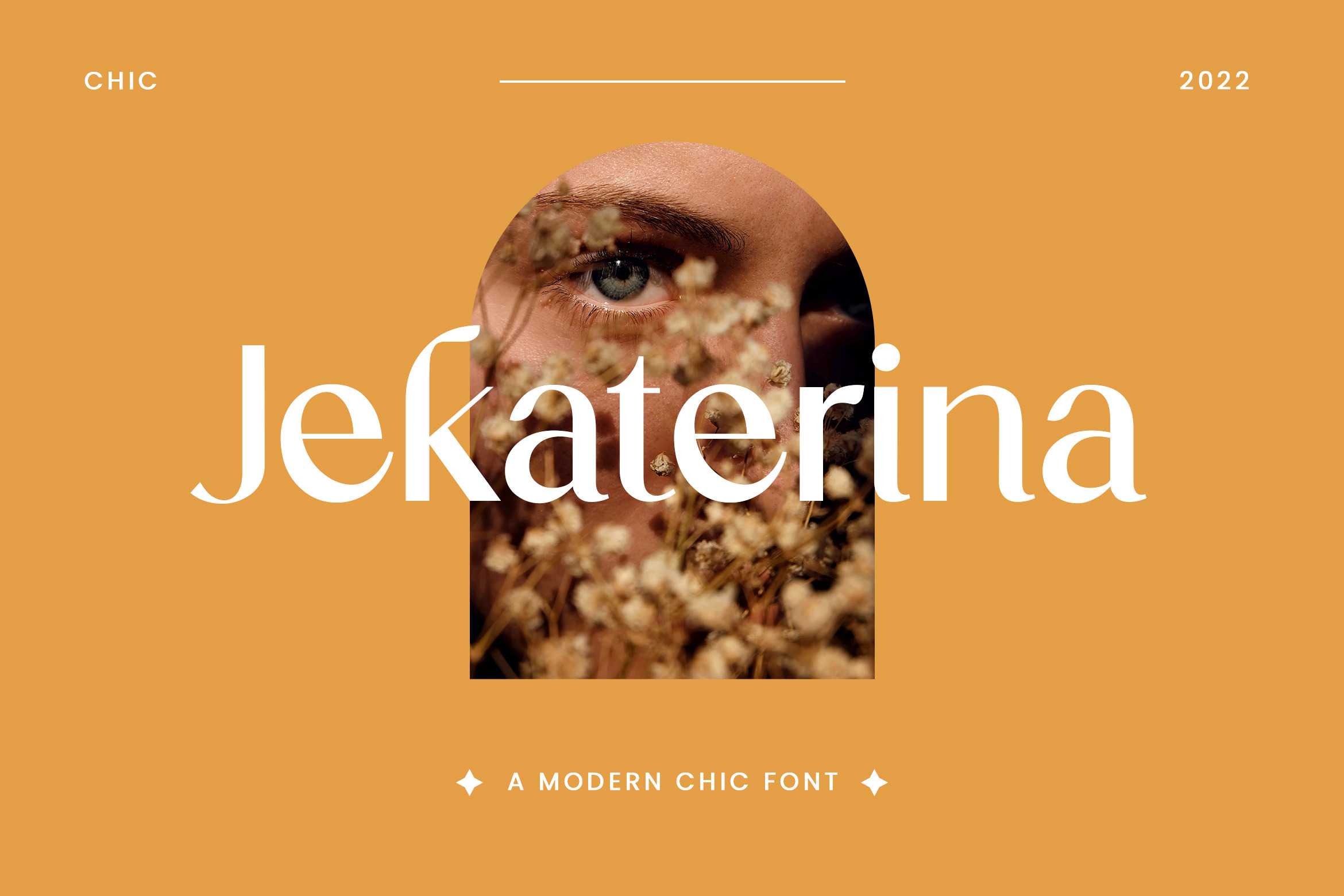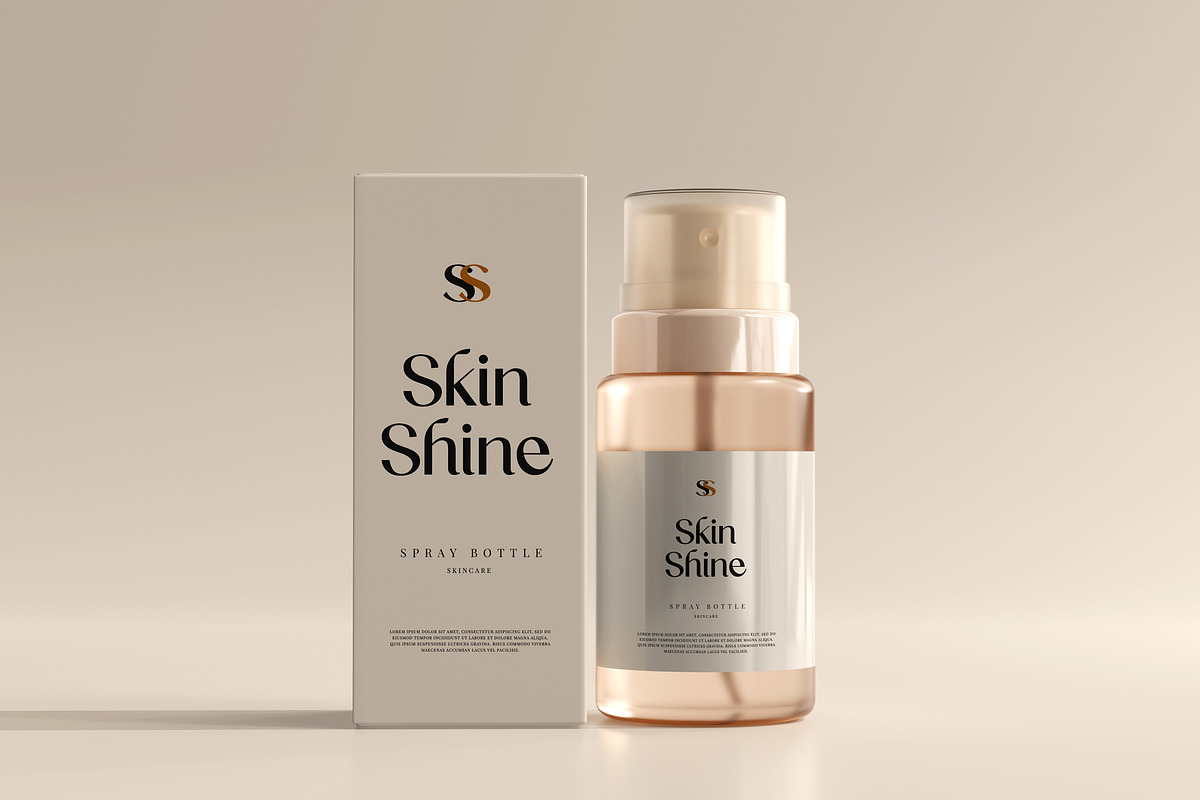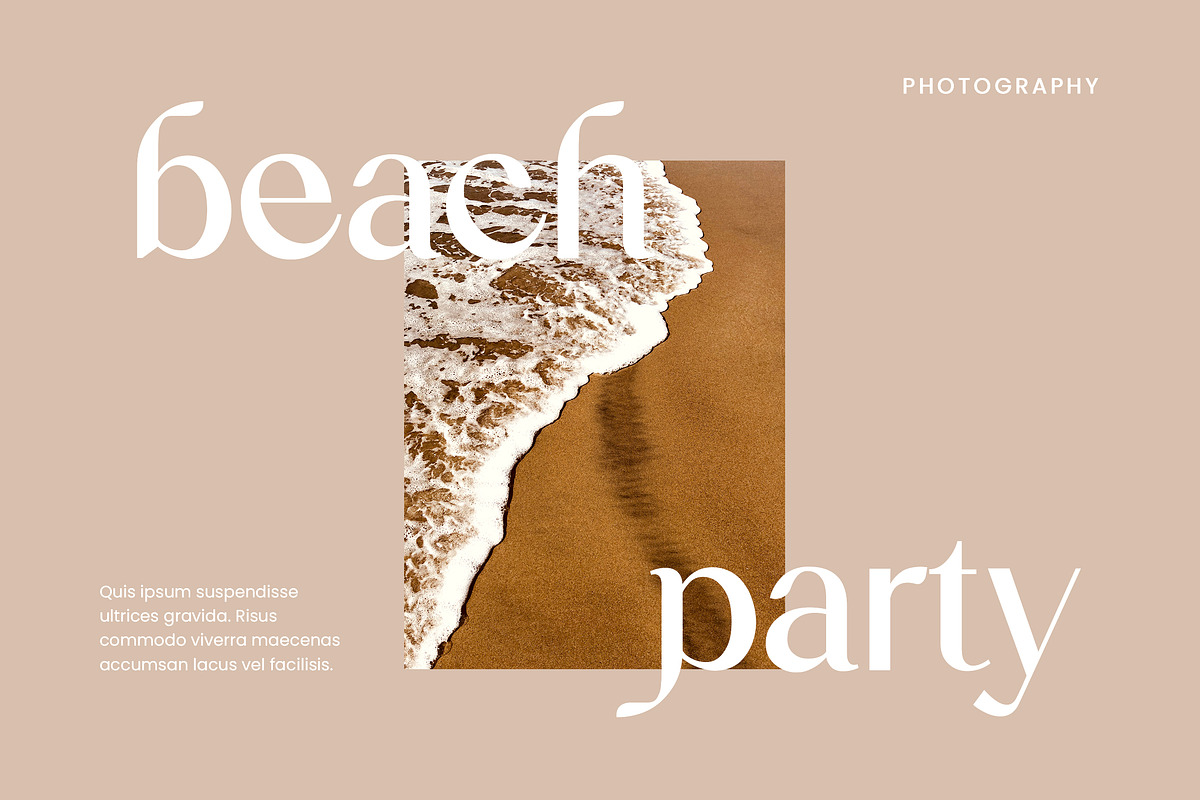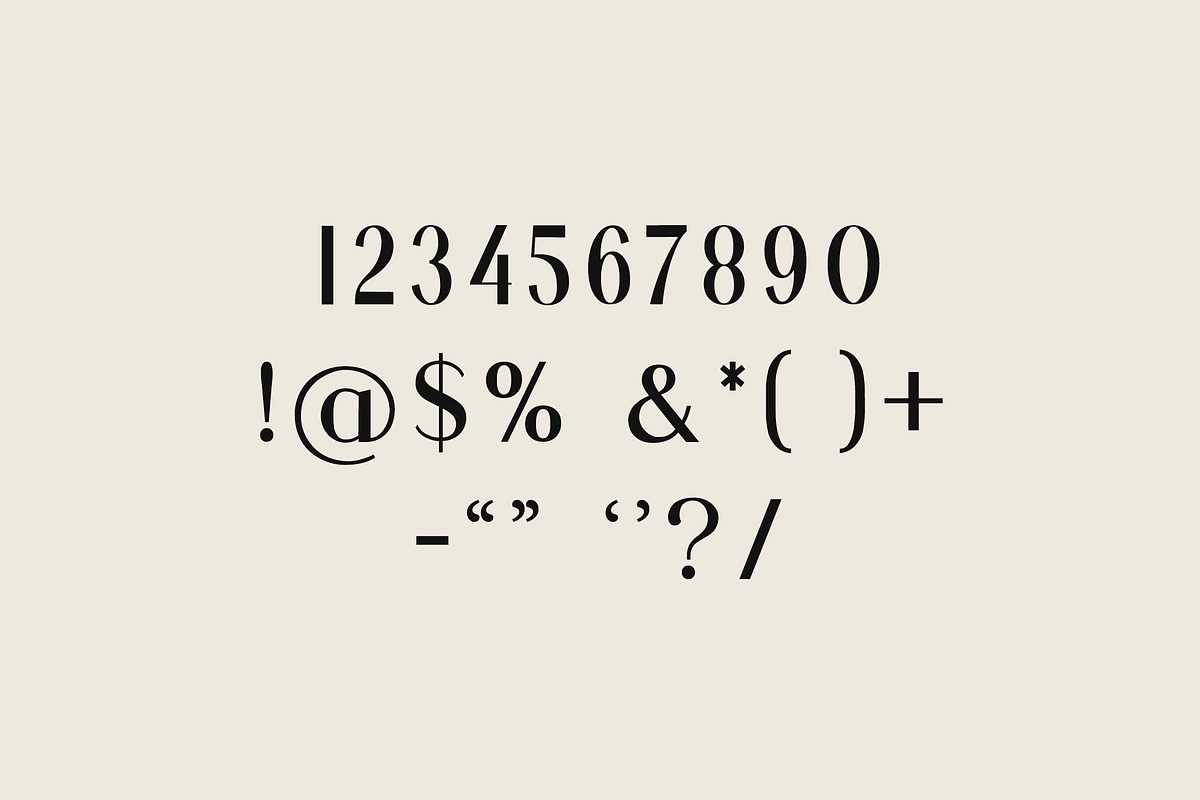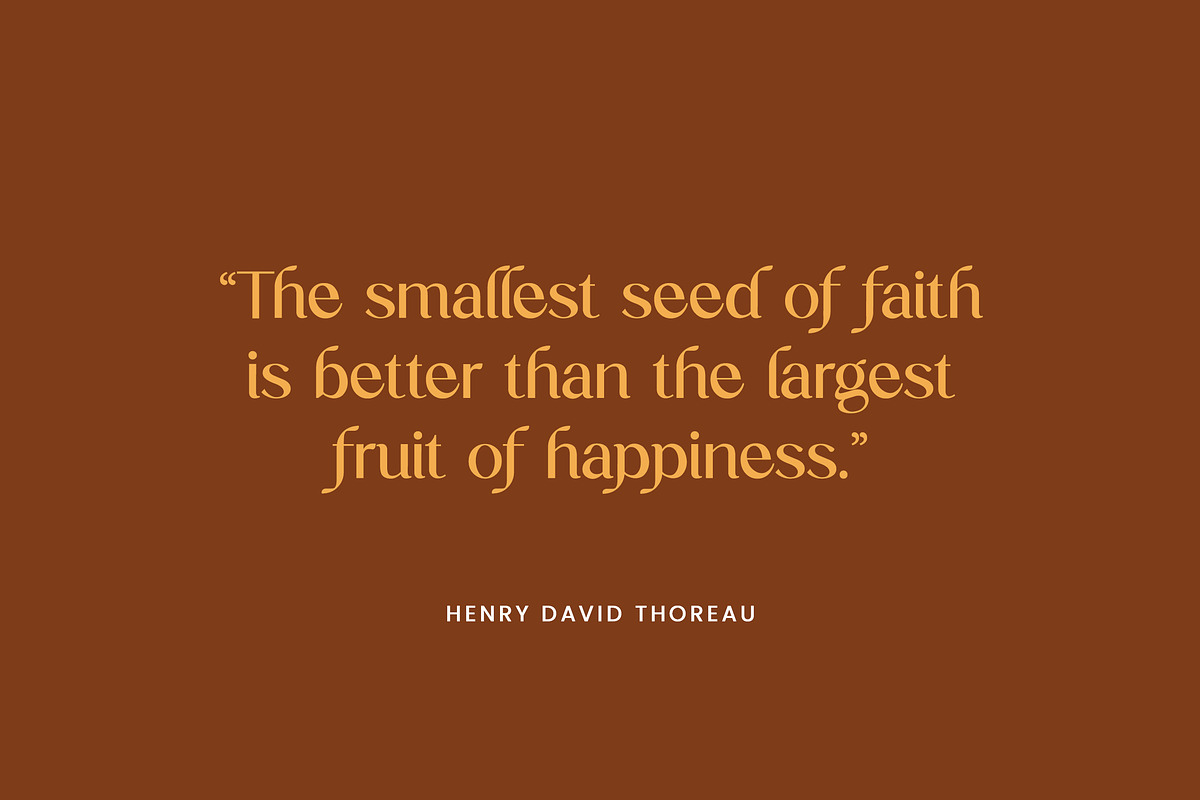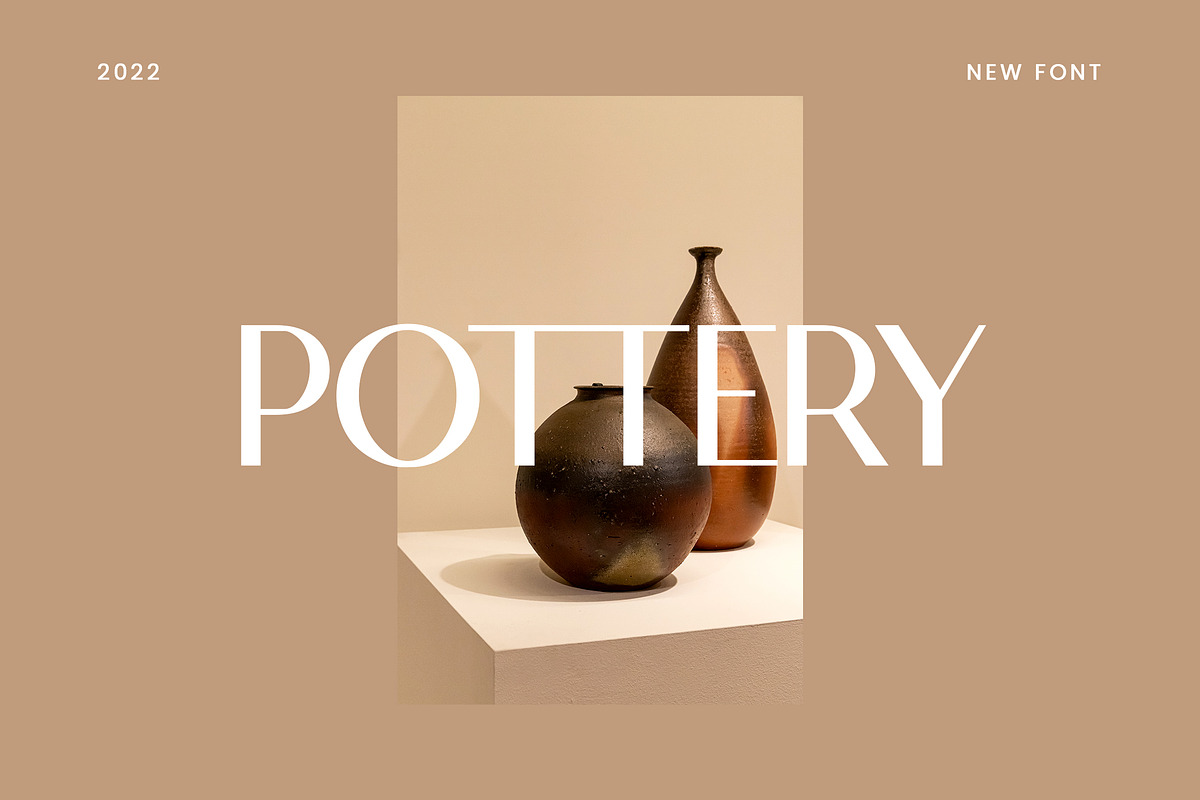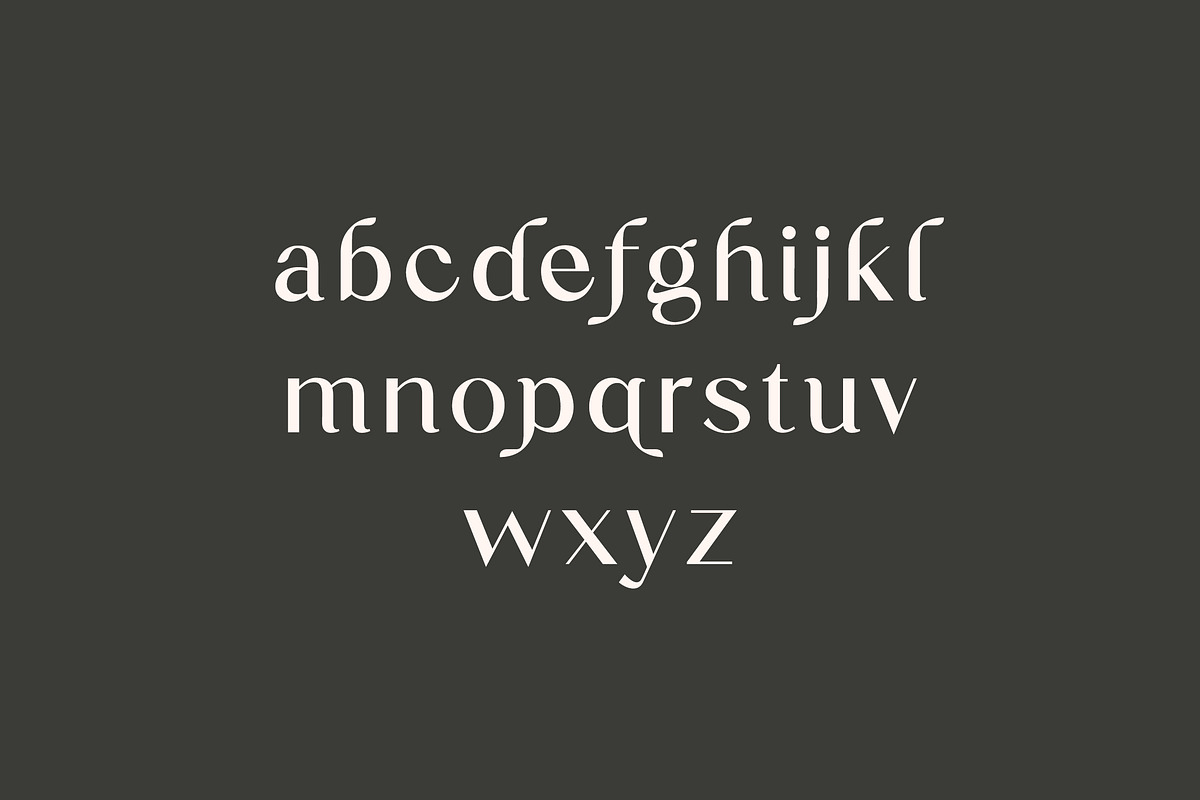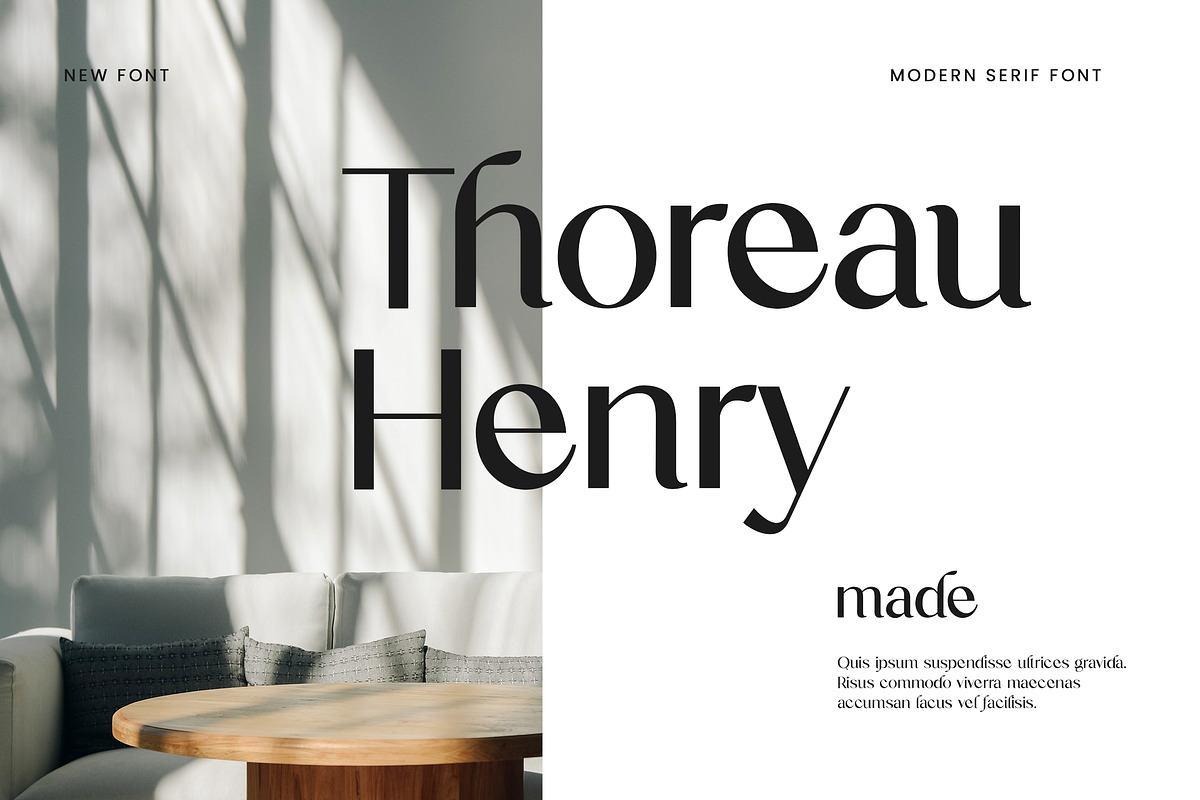
Jekaterina Modern Serif Font
Introducing our new product the name is Jekaterina Modern Serif Font. Modern Serif font that feels beautiful classy, elegant, and modern. This font is ideally suited for a wide variety of projects, such as signature, stationery, logo, wedding, typography quotes, magazine or book covers, website headers, clothing, branding, packaging design, and more. Also, fashion-related branding or editorial design displays both masculine and feminine qualities.